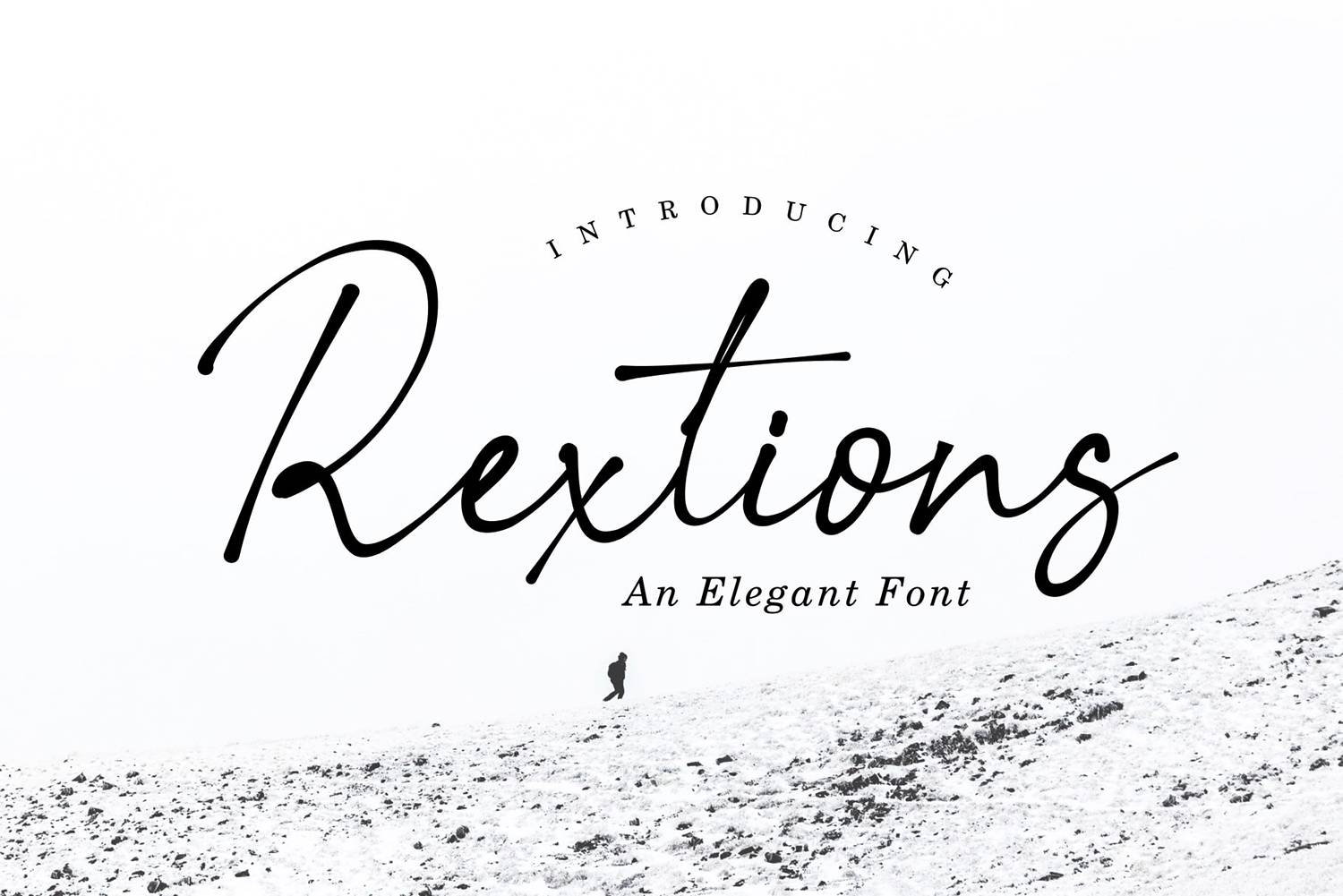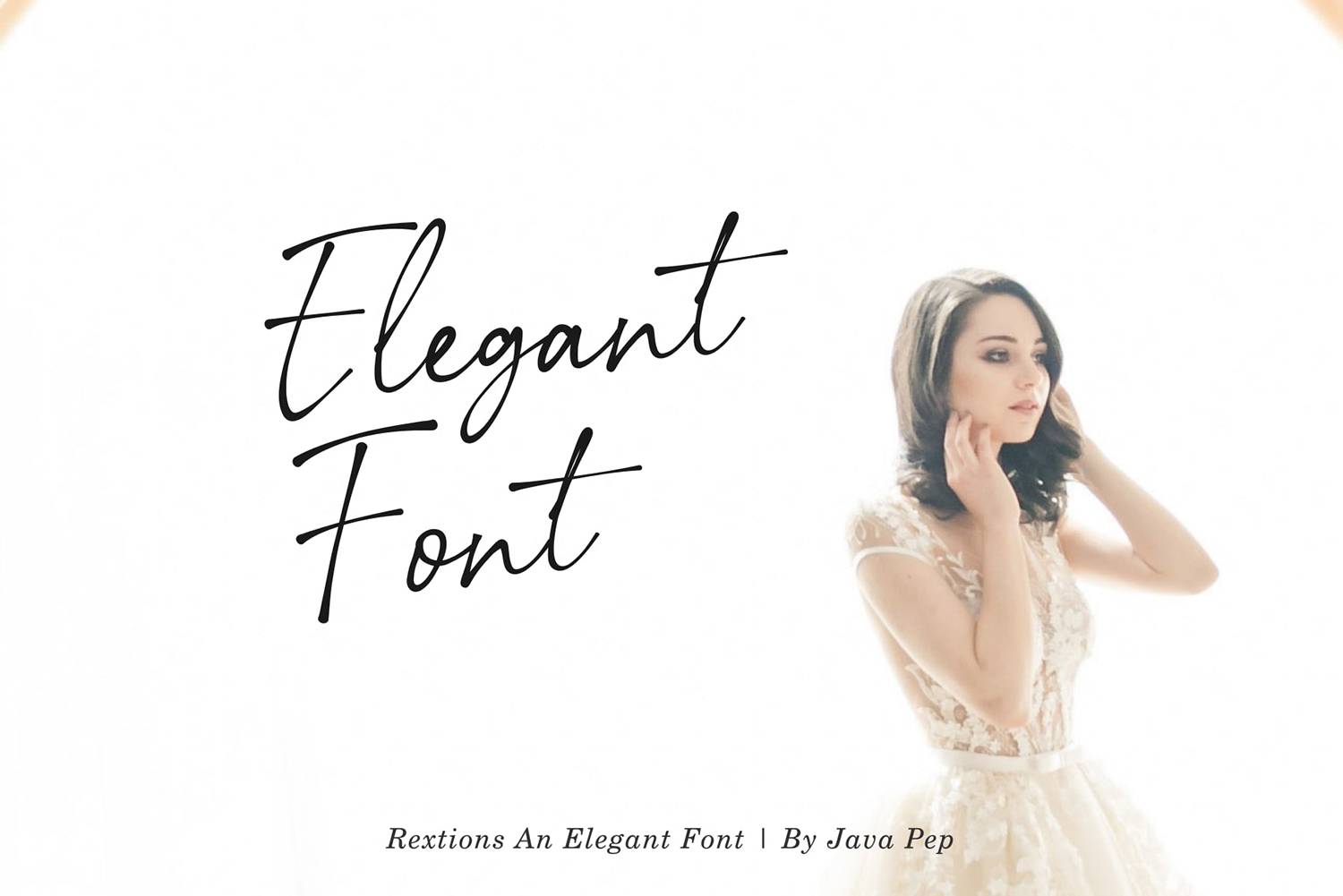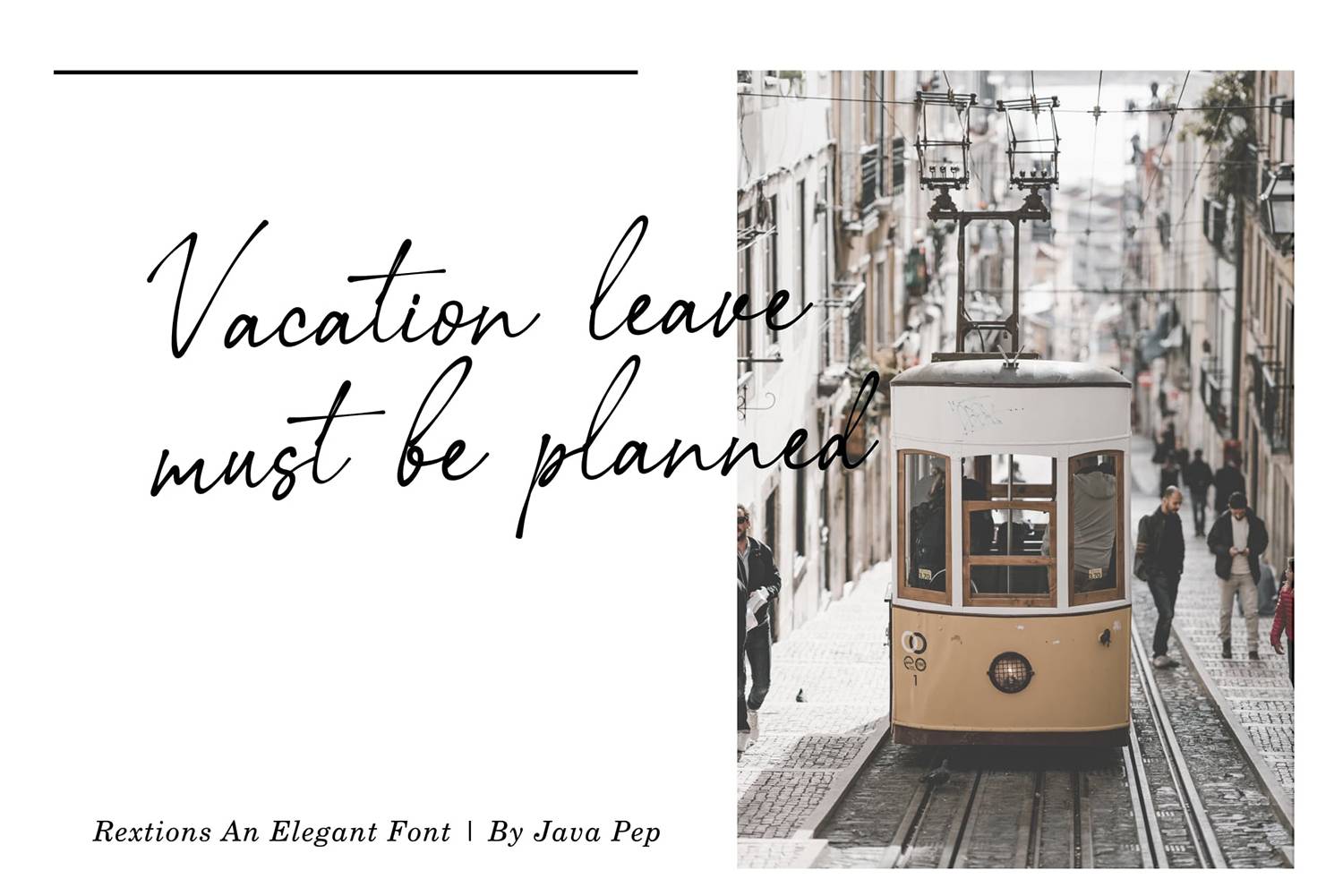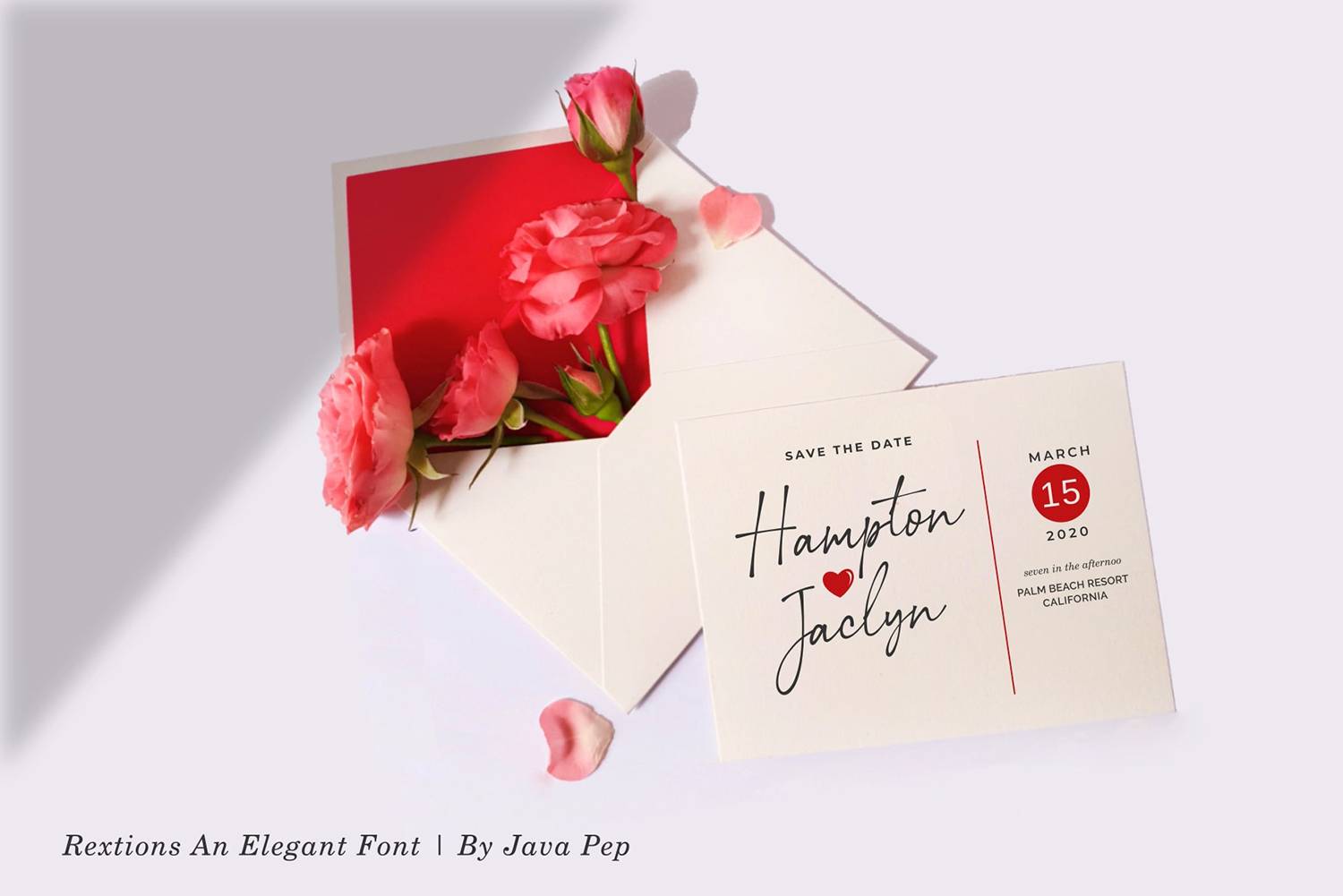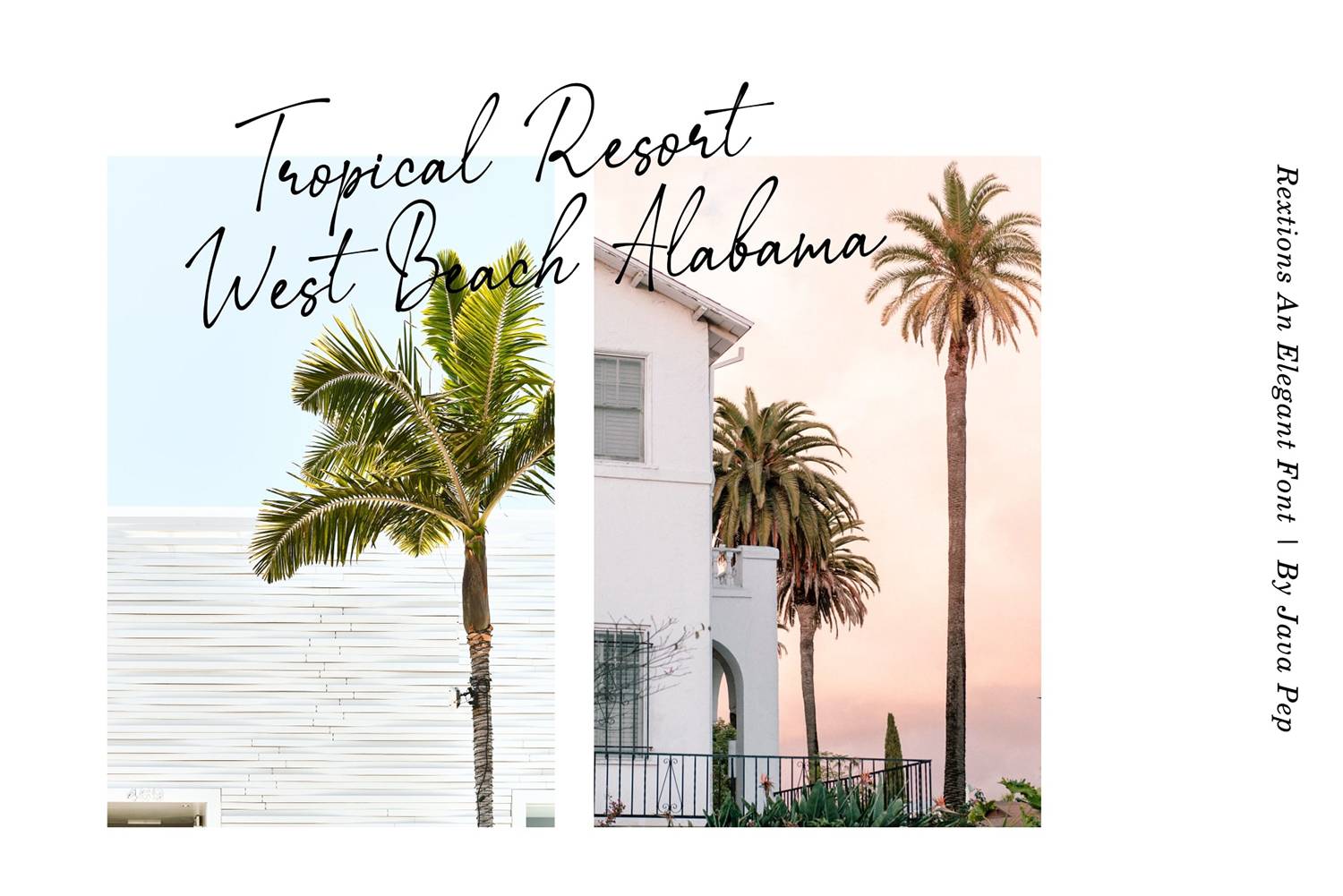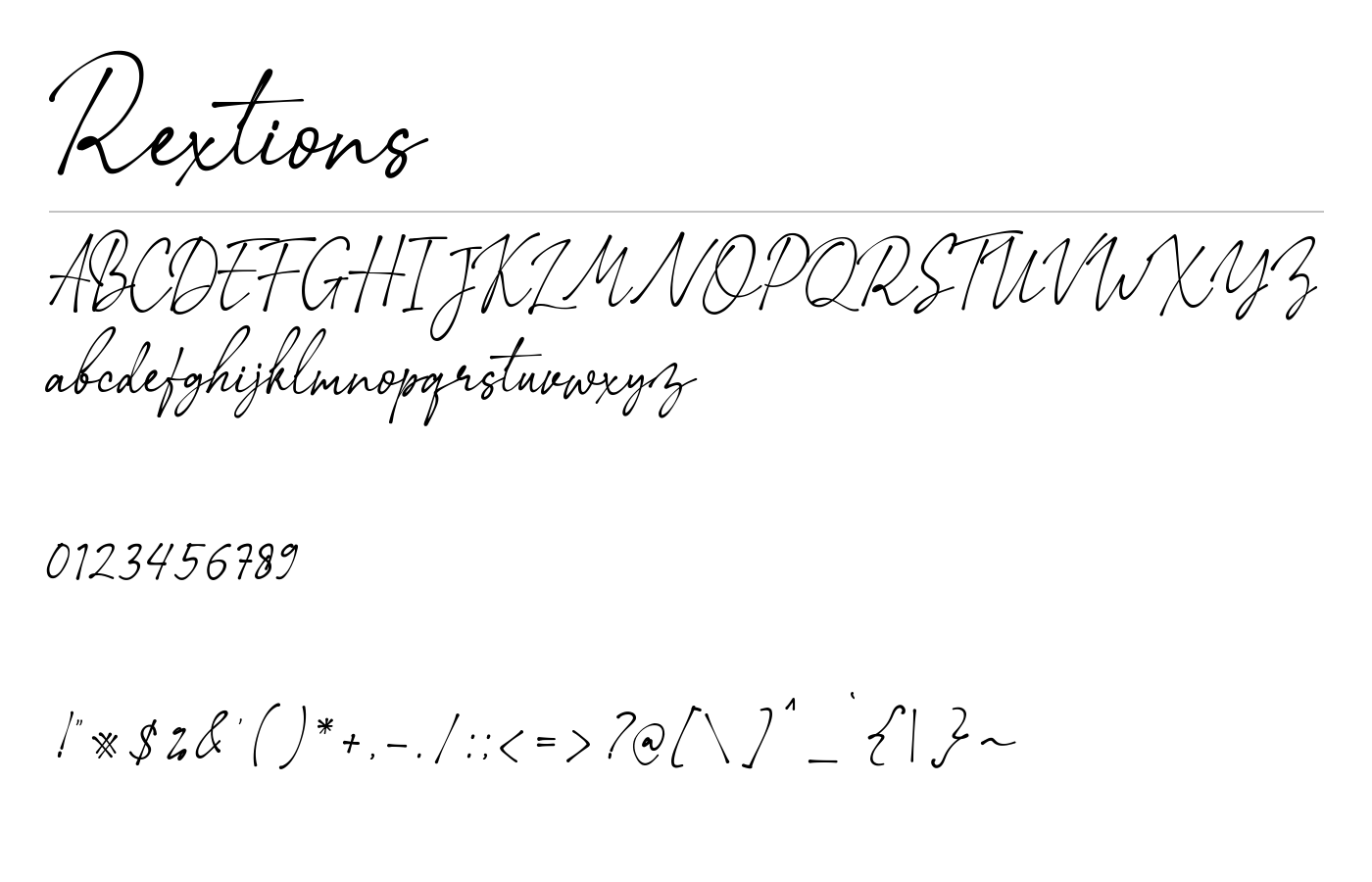
Rextions is a delicate, elegant script font with a light weight and flowing, natural stroke style that mimics handcrafted calligraphy. Its tall, slender letterforms and expressive curves create a sophisticated yet approachable feel, making it ideal for stylish branding, wedding invitations, or elegant editorial designs. The font’s refined personality shines in contexts where a personal, graceful touch is desired.
Rextions Font
About Rextions Font
| Font family | Rextions Font |